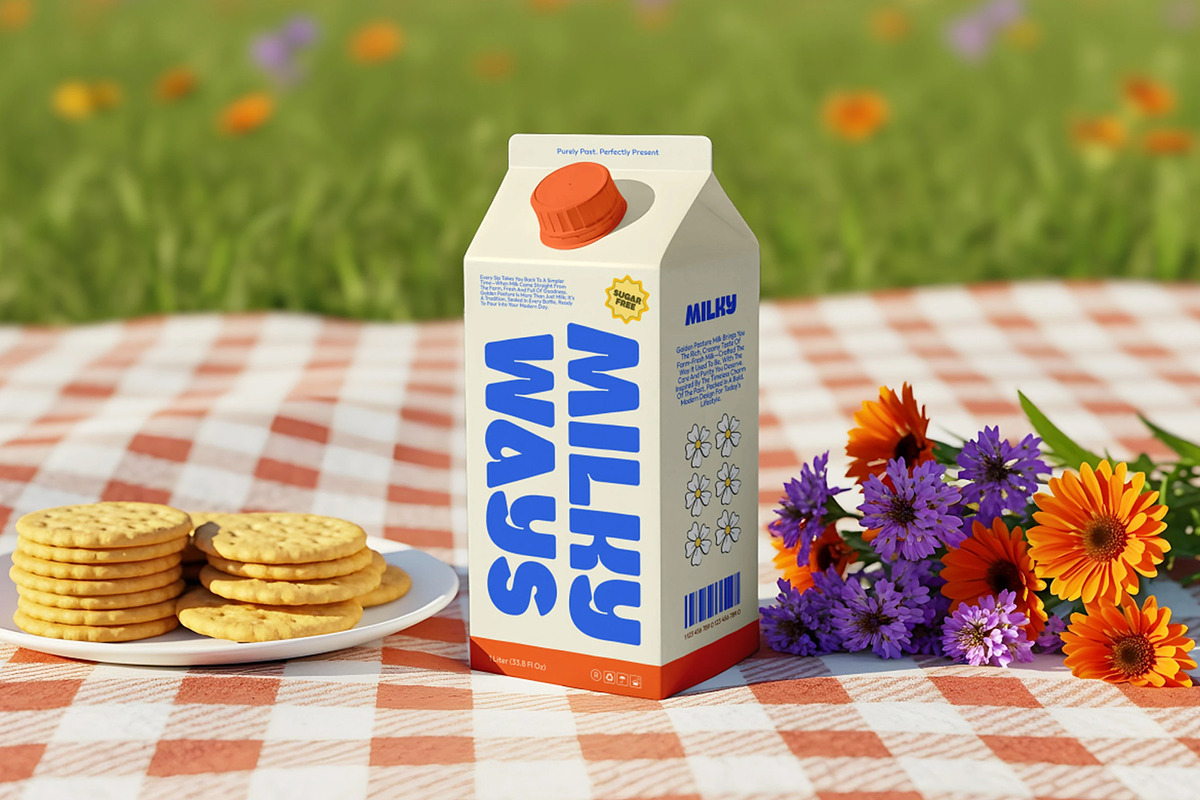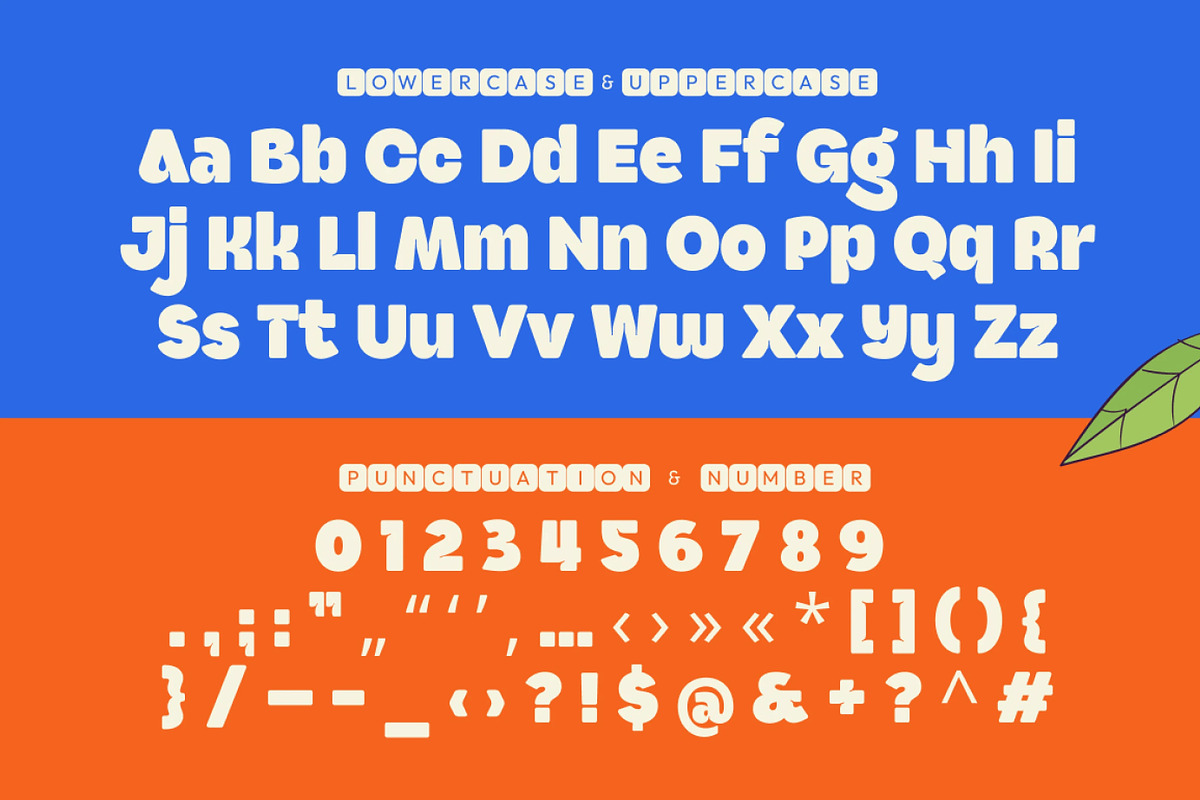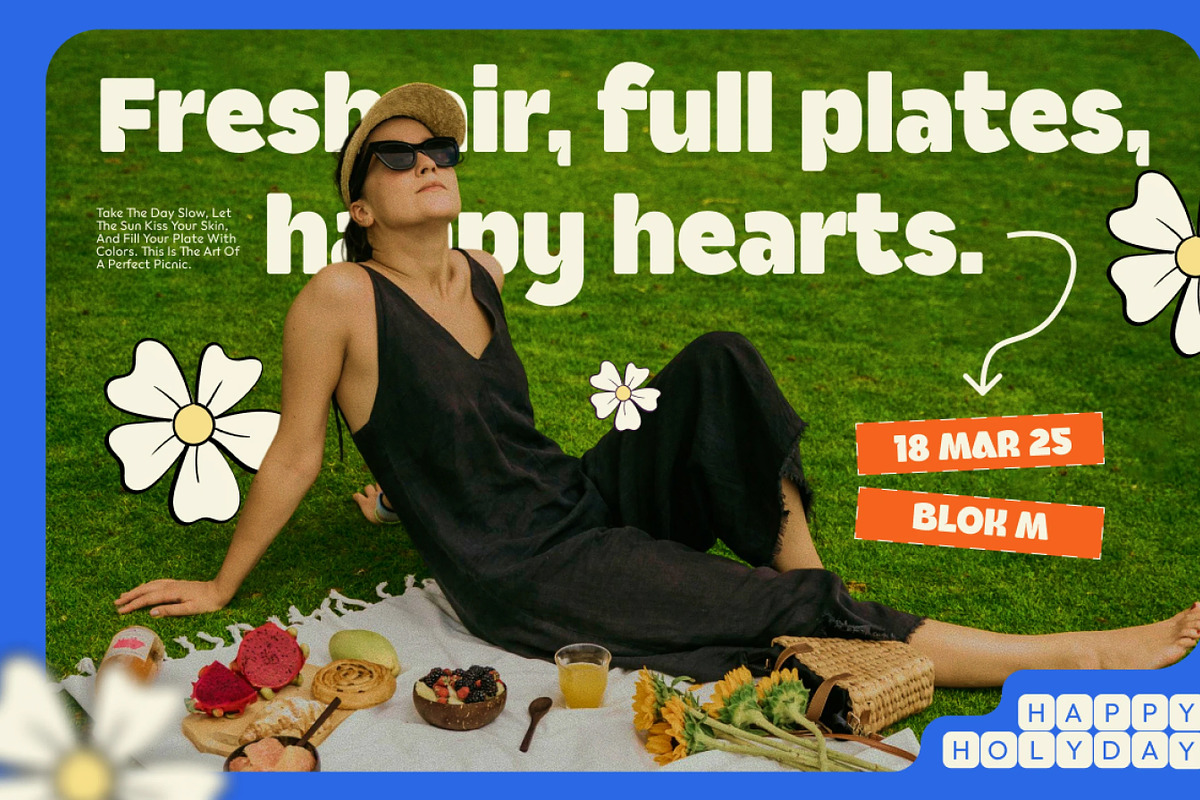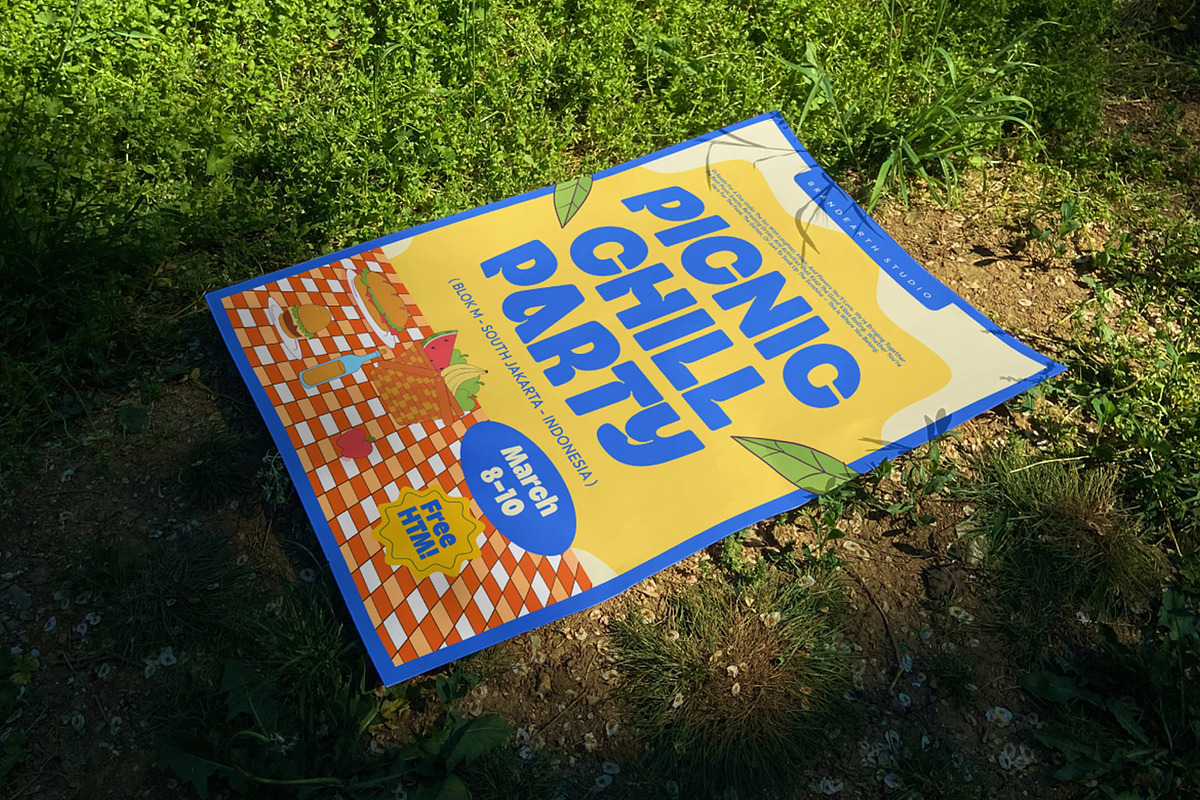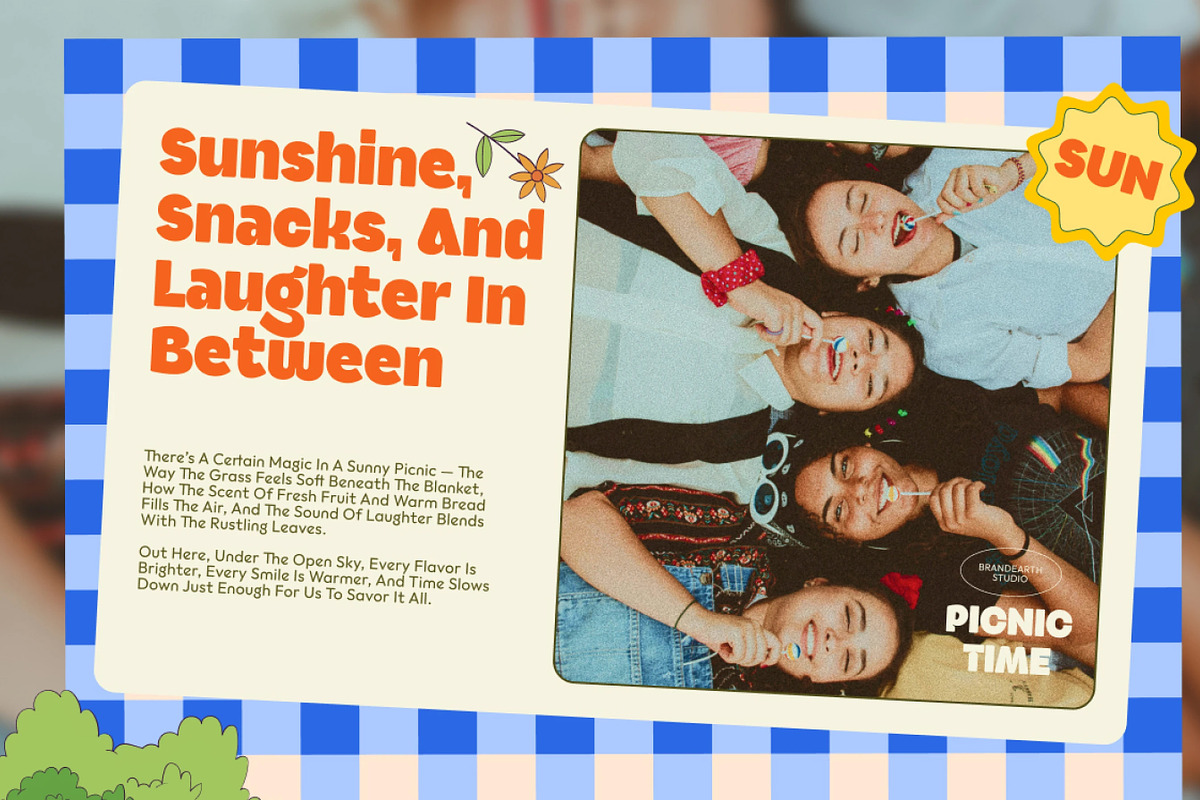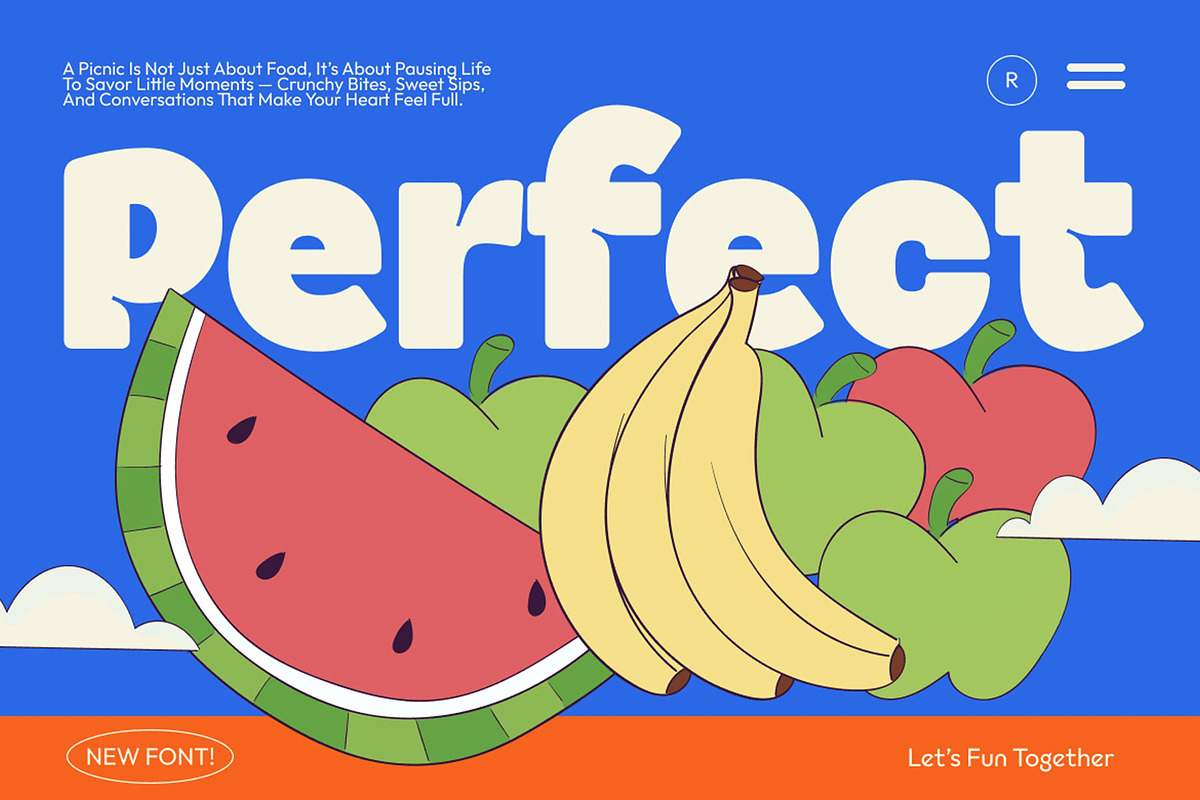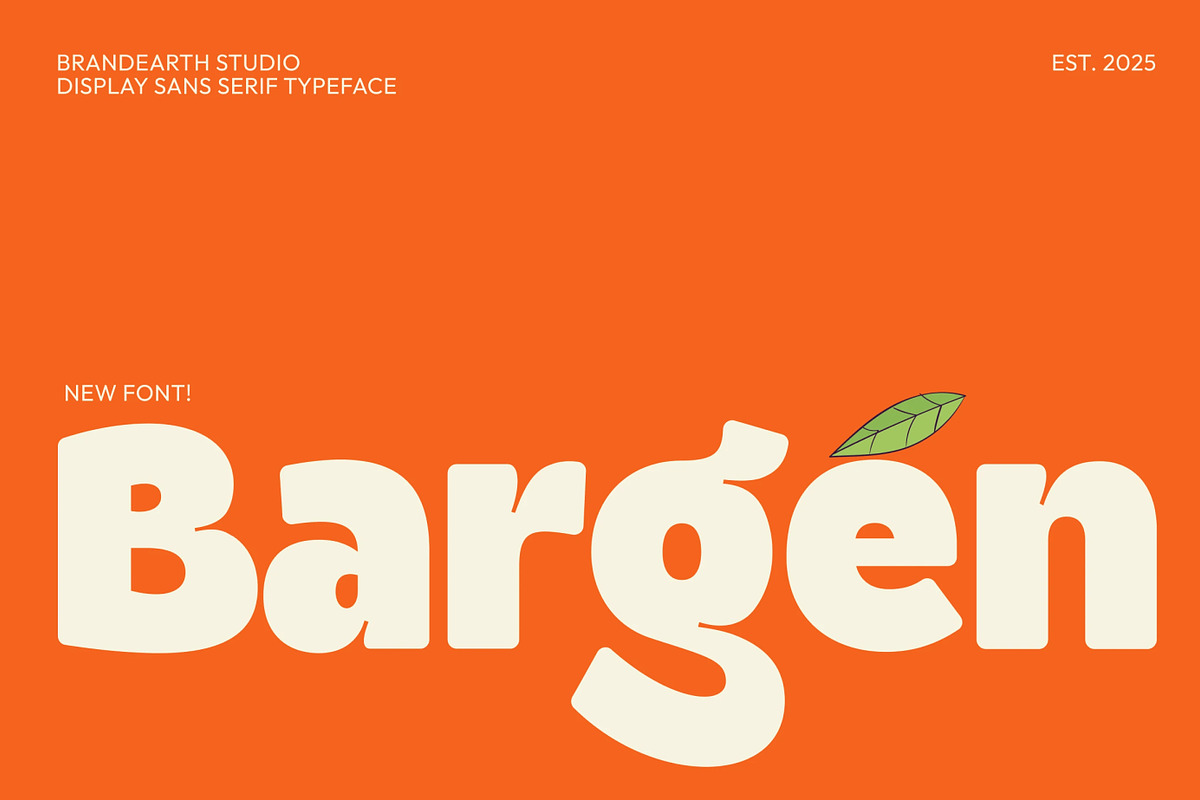
Bargen – Bold Playful Sans Serif
Bargen is a bold and playful sans serif font designed to bring a friendly and approachable vibe to your projects. Built for the modern era of organic and lifestyle branding, it captures a sense of warmth, energy, and personality in every letterform. Its rounded shapes and smooth curves make it a great choice for designs that need to feel inviting, casual, and full of character.
The letterforms in Bargen are crafted with chunky, rounded strokes and a bouncy rhythm that gives the typeface a friendly and confident presence. It features a fun modern edge that is perfect for food and beverage branding, children's book covers, café menus, and organic product labels.
With its casual yet professional presence, Bargen bridges the gap between playful charm and clean modern design. It provides bold visibility while remaining approachable, making it ideal for large-scale use like posters, banners, headlines, and packaging where its personality can shine across both digital and print media.
Numeral & Punctuations
Suitable For: brand identity, packaging design, food and beverage branding, children's book covers, event posters, casual merchandise, social media graphics, café menus, organic product labels, lifestyle promotions, modern advertising, creative campaigns, eco-friendly themes, outdoor events, summer posters, and joyful branding projects.